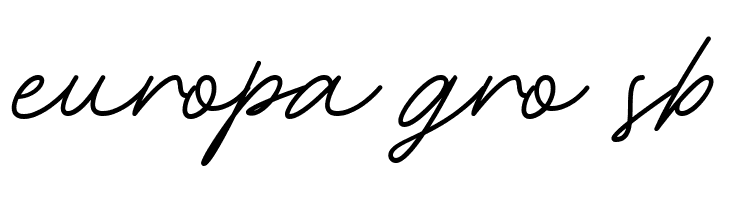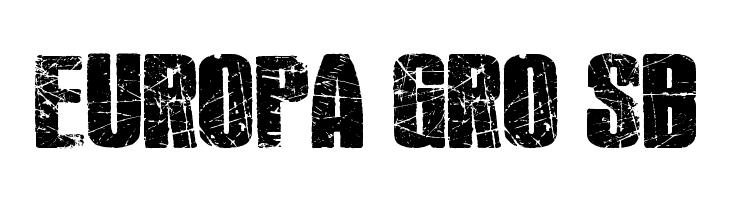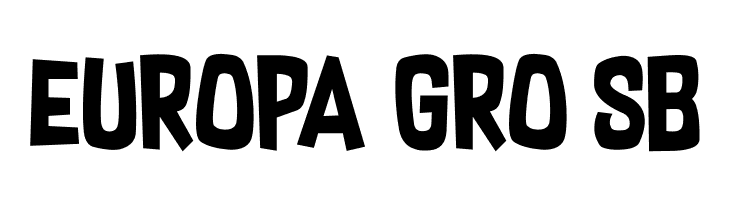
• Searocks-Regular
( Roman Paslavskiy - creativemarket.com/seveniwe )
A bold, modern sans-serif font with a slightly condensed style.
• Rocket Clouds DEMO Regular
( Wacaksara Co - www.wacaksara.co )
A cursive, handwritten-style font with elegant, flowing strokes.
• RockPaperScissors-Regular
( font studio four - www.hellofont.com/fonts/843?a=EL1 )
A geometric, multi-line font with a modern and bold appearance.
• Raleigh Rock
A bold, distressed font with a vintage, handcrafted appearance.
• Rock's Death
A bold, distressed font with a grunge aesthetic and rugged texture.
• Supersonic Rocketship
A bold, dynamic font with wide, condensed characters and a modern style.
• THEROCK
( mlkwsn - Malik Wisnu )
A bold, brush-stroke font with a textured, artistic style.
• Rocket Fuel
( 11th Floor - formerly www.xs4all.nl/~buro )
A bold, dynamic font with slanted, jagged cuts for a sense of speed.
• Rolly Rocko
( 538Fonts - storychoice.wix.com/homepage )
A bold, geometric font with sharp angles and a modern look.
• Rocketeer Gothic Medium
( Blackstar - www.facebook.com/xoxoblackstar13xoxo )
A modern-vintage font with rounded, elongated letterforms and playful special characters.